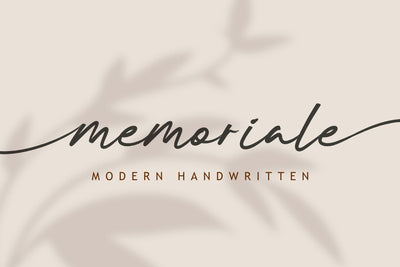
Memoriale - Modern Handwritten
Memoriale is a modern, handwritten type designed for an elegant and authoritative design. It includes all lowercase and uppercase characters, numbers and symbols, multilingual support, ligature, and beginning and ending SWSH.
Memoriale is perfect for logo fonts, beauty poster designs, skincare design fonts, valentine design fonts, social media design fonts, content designs and other designs.